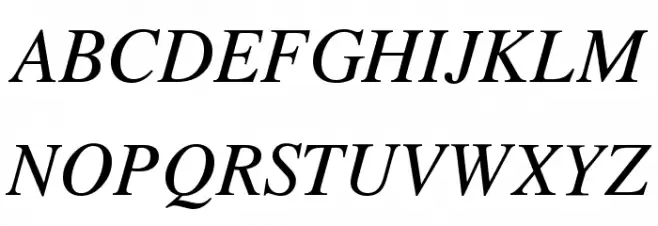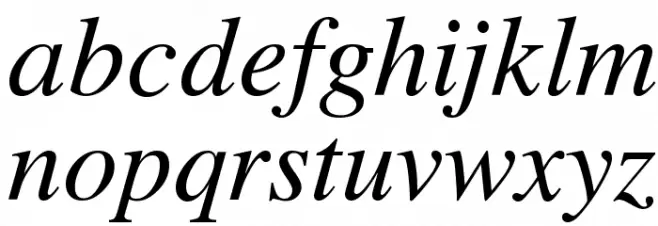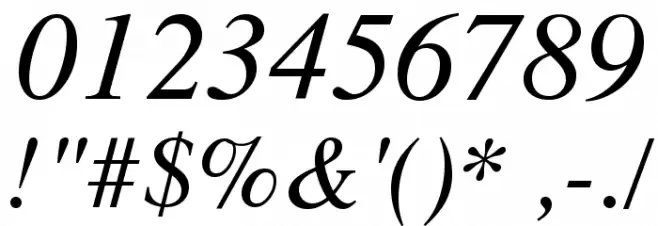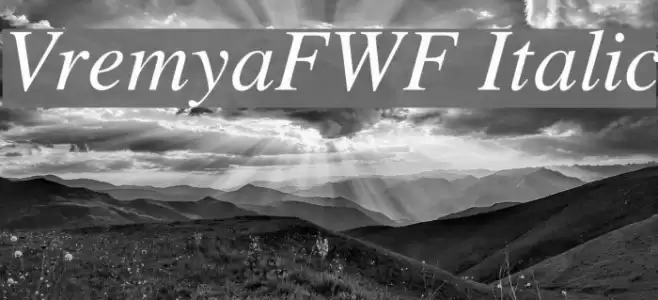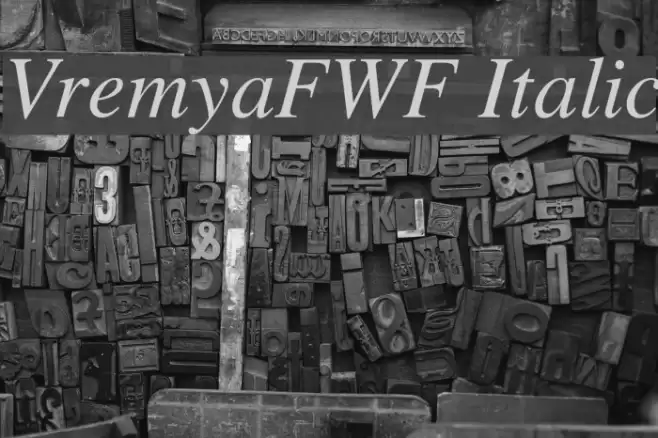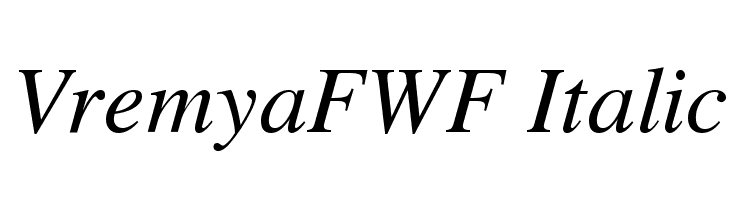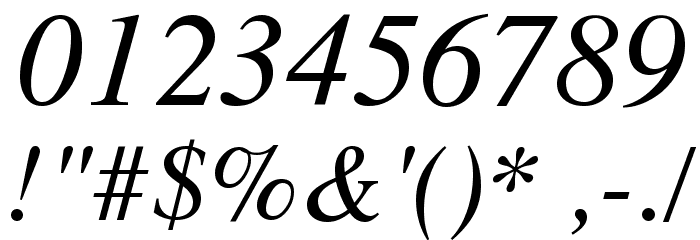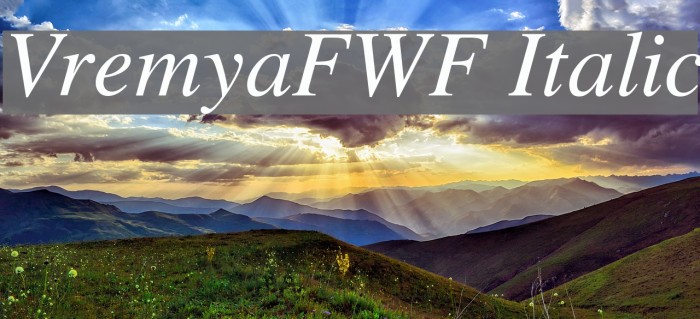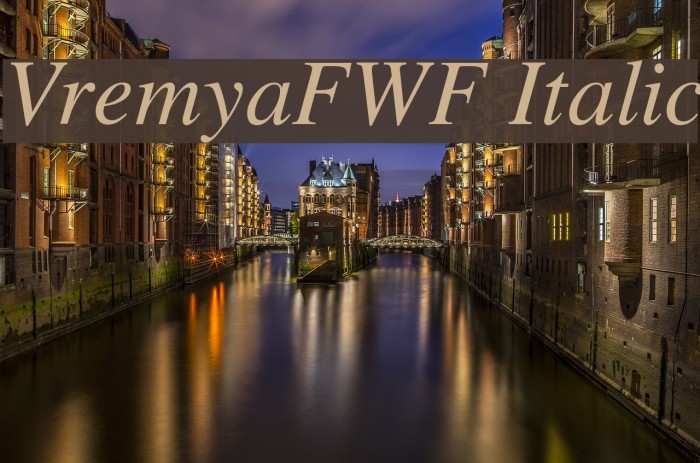
VremyaFWF Italic
This elegant serif font features a classic italic style, characterized by its smooth, flowing lines and subtle slant. The letters are well-proportioned, with a moderate contrast between thick and thin strokes, giving it a refined and sophisticated appearance. The uppercase letters are stately, while the lowercase letters maintain a graceful continuity. The numerals are clear and distinct, complementing the overall aesthetic. Special characters are designed with the same attention to detail, ensuring consistency across all elements. This font exudes a timeless elegance, making it suitable for a variety of formal and creative applications.
A classic italic serif font with elegant, flowing lines and moderate stroke contrast.
- Proposed Projects: Ideal for use in formal invitations, editorial design, branding, and luxury product packaging.
- Category: Serif
- Overall Style: Classic